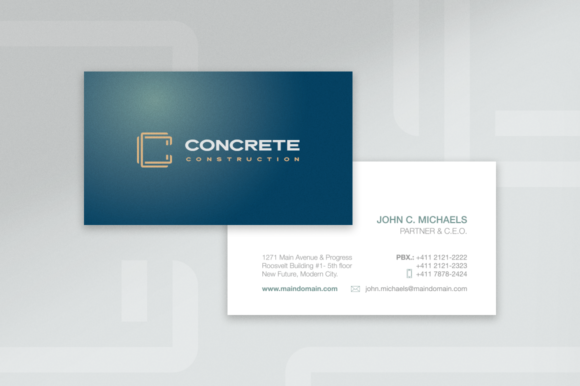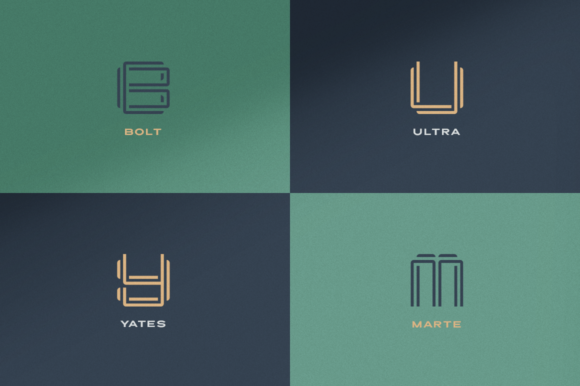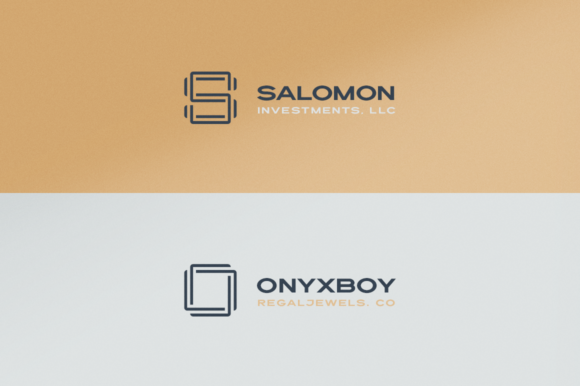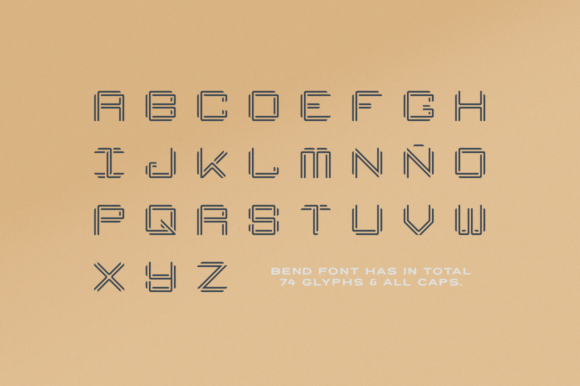
Bend Font: Elevate Your Designs with a Futuristic Twist
In the realm of typography, fonts play a pivotal role in transforming the visual appeal of any design. Among the myriad of fonts available, the Bend Font stands out for its unique, futuristic feel that can instantly elevate the elegance of your projects. In this article, we’ll delve into the characteristics of the Bend Font, its applications, and why it has become a go-to choice for designers and crafters alike.
What is Bend Font?
Bend Font is a two-line display font that exudes a sense of futurism and sophistication. Its distinctive design makes it perfect for projects that demand a touch of modernity and elegance. Whether you’re working on a logo, a poster, a website header, or any other design element, Bend Font can add that extra layer of visual appeal that sets your work apart.
Key Features of Bend Font
- Unique Two-Line Design: The most striking feature of Bend Font is its two-line design, which gives it a futuristic and somewhat unconventional look. This feature makes it highly versatile and suitable for a wide range of design applications.
- Elegant and Sophisticated: Despite its modern feel, Bend Font carries an air of elegance and sophistication. This makes it an excellent choice for designs that require a balance of innovation and refinement.
- Highly Legible: One of the critical aspects of any font is legibility, and Bend Font does not disappoint. Its clear and distinct letters ensure that your message is conveyed effectively, even at larger sizes.
- Versatile: Bend Font can be used across various platforms and design materials, from digital interfaces to print materials. Its adaptability makes it a valuable addition to any designer’s toolkit.
Applications of Bend Font
The versatility of Bend Font allows it to be used in a multitude of design projects. Here are some of the areas where Bend Font can make a significant impact:
- Branding and Logos: A well-designed logo is crucial for any brand. Bend Font can help create a memorable and impactful logo that communicates your brand’s values and personality.
- Posters and Flyers: For print materials, Bend Font can serve as a headline font that captures attention and draws the viewer in.
- Web Design: In the digital realm, Bend Font can be used for website headers, landing pages, or any element that requires a standout font.
- Social Media Graphics: With the increasing importance of social media, having unique and engaging graphics is vital. Bend Font can help your social media posts and stories stand out.
Why Choose Bend Font?
In a world where design trends are constantly evolving, having a font that can keep up with the times is essential. Here are a few reasons why Bend Font should be your go-to choice:
- Unique Aesthetic: Bend Font offers a fresh and distinctive look that can set your designs apart from the crowd.
- Easy to Use: Despite its complex appearance, Bend Font is straightforward to use and integrate into your projects.
- Supports Creativity: With Bend Font, your creativity isn’t limited. It’s a tool that can help bring your most ambitious design ideas to life.
| Font Name | Bend Font |
| Author | DonMarciano |
Bend Font is more than just a typeface; it’s a design statement. Its futuristic feel, combined with its elegance and versatility, makes it an excellent choice for designers and crafters looking to add a unique touch to their projects. Whether you’re aiming to create a bold logo, an eye-catching poster, or a captivating website, Bend Font can help you achieve your design goals with style. Embrace the future of design with Bend Font and elevate your creations to new heights.